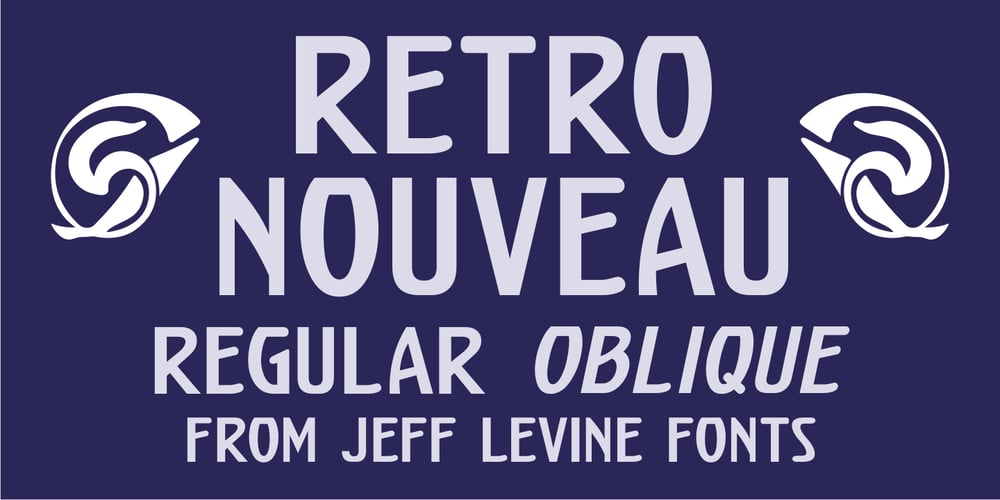
Retro Nouveau JNL Font Family was designed by Jeff Levine and published by Jeff Levine. Retro Nouveau JNL contains 2 styles and family package options. Because of the large influx of Irish immigrants during the late 1800s and early 1900s, it was not unusual for songwriters of the day to craft songs around Irish themes, offering a nostalgic link to their homeland. One such 1917 piece entitled “You Brought Ireland Right Over to Me” had the title hand lettered on the sheet music cover in a sans serif design reflecting the popular Art Nouveau movement of the day. This design is now available digitally as Retro Nouveau JNL, in both regular and oblique versions.